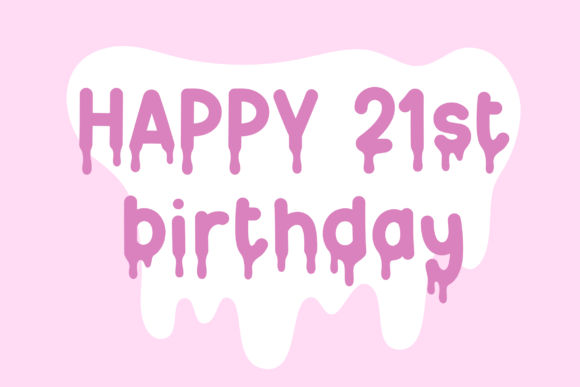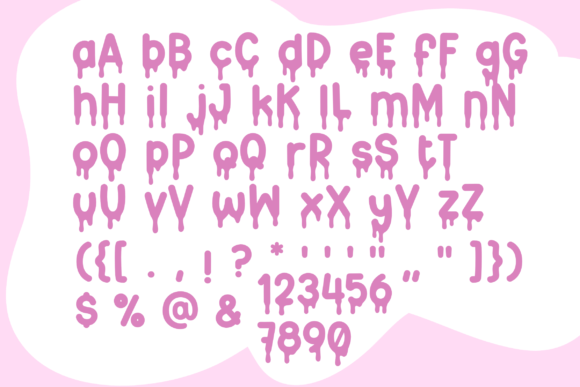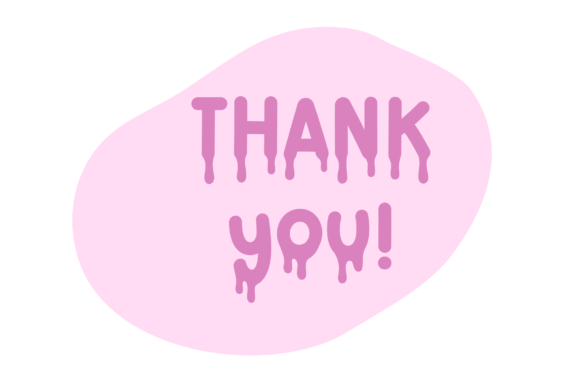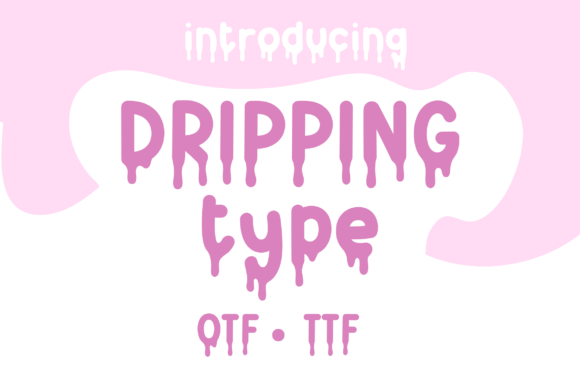
DrippingType Font: Add a Quirk to Your Designs with this Unique Handwritten Font
Are you tired of using the same old fonts in your designs and crafts? Look no further than the DrippingType font, a quirky handwritten font that adds a touch of whimsy to any project. With its unique drip style, this font is sure to make your work stand out from the crowd.
What is DrippingType Font?
DrippingType is a one-of-a-kind handwritten font that features a distinctive drip style. The font comes with both lowercase and uppercase letters, as well as numbers, all with the signature drip effect. This font is perfect for designers and crafters looking to add a bit of quirkiness to their projects.
Key Features of DrippingType Font
- Handwritten style: DrippingType has a unique, handwritten look that’s perfect for adding a personal touch to your designs.
- Drip style: The font features a distinctive drip effect that adds a touch of whimsy to your text.
- Lowercase and uppercase letters: The font includes both lowercase and uppercase letters, making it versatile for a variety of projects.
- Numbers with drips: The numbers in the font also feature the signature drip effect, making it perfect for creating unique headings and titles.
Why Choose DrippingType Font?
There are many fonts available online, but DrippingType stands out from the rest. Here are just a few reasons why:
- Unique style: DrippingType has a one-of-a-kind drip style that’s sure to make your projects stand out.
- High-quality: The font is high-quality and comes with a range of characters, including lowercase and uppercase letters, numbers, and punctuation.